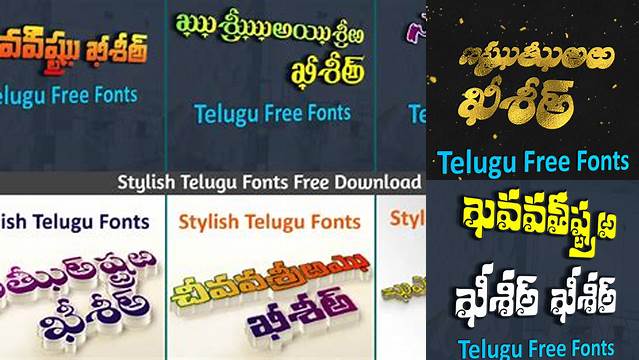
Telugu Movie Title Fonts: Free Download Guide
Let's dive into the vibrant world of Telugu cinema and explore where you can find the perfect telugu movie title fonts for free download. Choosing the right font is crucial; it's the first impression, the visual hook that grabs the audience's attention. We'll cover everything from classic styles to modern designs, ensuring you're well-equipped to make your movie title pop!
Telugu Font Styles for Movie Titles
When it comes to telugu movie title fonts, the variety is truly impressive. You have traditional fonts that evoke a sense of history and culture, often used in period dramas or films with a classical theme. These fonts tend to be more ornate and have a strong calligraphic influence. Then there are modern fonts that are sleek, clean, and contemporary, perfect for thrillers, action movies, or romantic comedies aiming for a fresh look. You might also find fonts that blend both traditional and modern elements, creating a unique and eye-catching style that stands out. Think about the genre and tone of your movie. A horror film might benefit from a distressed or edgy font, while a family-friendly movie would suit a playful and approachable typeface. Considering these factors will help you narrow down your choices and find the perfect font that complements your film's overall aesthetic. Experiment with different styles and see what resonates best with your vision. Remember, the font should not only be visually appealing but also legible and easy to read, even from a distance. This ensures that your movie title makes a strong impact and leaves a lasting impression on potential viewers.
Telugu Calligraphy Fonts
Telugu calligraphy fonts are an excellent choice for movie titles that require a touch of elegance and tradition. These fonts often mimic the fluid strokes of hand-lettered calligraphy, adding a unique and sophisticated feel to your design. When using calligraphy fonts, it's essential to consider the legibility of the title. While these fonts can be visually stunning, they may not be as easy to read as more straightforward typefaces, especially from a distance. Therefore, it's crucial to choose a calligraphy font that strikes a balance between beauty and readability. Experiment with different font sizes and spacing to ensure that the title remains clear and legible. Additionally, consider the context of the movie. Calligraphy fonts are particularly well-suited for historical dramas, romantic films, or movies that emphasize cultural heritage. They can evoke a sense of timelessness and authenticity, adding depth and meaning to the title. However, they may not be the best choice for modern action movies or thrillers, where a more contemporary font style might be more appropriate. When selecting a Telugu calligraphy font, pay attention to the details of the letterforms. Look for fonts that have smooth, flowing lines and consistent stroke weights. Avoid fonts that appear too cluttered or difficult to decipher. By carefully choosing and using Telugu calligraphy fonts, you can create movie titles that are both visually appealing and culturally relevant.
Modern Telugu Fonts
Modern Telugu fonts offer a sleek and contemporary alternative to traditional calligraphy styles. These fonts are characterized by their clean lines, minimalist designs, and emphasis on legibility. They are an excellent choice for movie titles that aim to convey a sense of modernity, innovation, or sophistication. Modern fonts are particularly well-suited for genres like science fiction, action, thrillers, and romantic comedies, where a fresh and contemporary look is desired. When using modern Telugu fonts, it's important to consider the overall tone and style of the movie. A futuristic sci-fi film might benefit from a geometric sans-serif font, while a lighthearted romantic comedy might call for a more playful and rounded typeface. Experiment with different font weights and styles to achieve the desired effect. Bold fonts can convey a sense of strength and confidence, while lighter fonts can create a more delicate and airy feel. Pay attention to the spacing between letters and words to ensure that the title remains easy to read. Modern fonts often work well with bold colors and minimalist backgrounds, allowing the title to stand out and make a strong visual impact. When selecting a modern Telugu font, look for typefaces that are well-designed and optimized for readability. Avoid fonts that appear too generic or lack character. Choose fonts that have a unique personality and complement the overall aesthetic of your movie. By carefully selecting and using modern Telugu fonts, you can create movie titles that are both stylish and effective.
Bold Telugu Fonts
Bold Telugu fonts are a powerful tool for creating movie titles that demand attention. The increased stroke weight of bold fonts makes them highly visible and easy to read, even from a distance. This makes them an excellent choice for movie posters, trailers, and other promotional materials where the title needs to make a strong impact. When using bold fonts, it's important to consider the overall design and composition of the title. Bold fonts can be overwhelming if not used carefully, so it's essential to balance their visual weight with other elements in the design. Use whitespace effectively to give the title room to breathe and prevent it from feeling too cluttered. Experiment with different font sizes and styles to find the right balance. A bold font can be particularly effective when paired with a contrasting background color, making the title stand out even more. However, be mindful of the color palette and ensure that the colors complement each other. Bold fonts are well-suited for a variety of genres, including action movies, thrillers, and dramas, where a sense of urgency and intensity is desired. They can also be used effectively in comedies and romantic films, but it's important to choose a font that is appropriate for the overall tone and style of the movie. When selecting a bold Telugu font, look for typefaces that are well-designed and optimized for readability. Avoid fonts that appear distorted or difficult to decipher. Choose fonts that have a consistent stroke weight and clean letterforms. By carefully selecting and using bold Telugu fonts, you can create movie titles that are both visually striking and highly effective.
Italic Telugu Fonts
Italic Telugu fonts offer a subtle yet effective way to add emphasis and style to your movie titles. The slanted letterforms of italic fonts can convey a sense of movement, energy, or sophistication, making them a versatile choice for a variety of genres. When using italic fonts, it's important to consider the context and tone of the movie. Italic fonts can be particularly well-suited for romantic films, dramas, and historical movies, where a touch of elegance and refinement is desired. They can also be used effectively in thrillers and mysteries to create a sense of intrigue and suspense. However, they may not be the best choice for action movies or comedies, where a more straightforward and bold font style might be more appropriate. When selecting an italic Telugu font, pay attention to the design of the letterforms. Look for fonts that have a consistent slant and smooth, flowing lines. Avoid fonts that appear distorted or difficult to read. Experiment with different font sizes and styles to achieve the desired effect. Italic fonts can be particularly effective when paired with a contrasting background color or used in combination with a bold font. This can help to create visual interest and draw attention to the title. However, be mindful of the overall design and composition of the title and ensure that the italic font complements the other elements. By carefully selecting and using italic Telugu fonts, you can create movie titles that are both stylish and effective.
Telugu Font Color Combinations
Exploring effective telugu font color combinations is essential for creating visually striking movie titles and promotional materials that capture attention and convey the right message. The colors you choose for your Telugu font can significantly impact the overall mood, tone, and readability of your design. When selecting color combinations, consider the genre, themes, and target audience of your movie. Bold and contrasting colors, such as red and black or yellow and blue, can be effective for action and thriller movies, creating a sense of excitement and energy. Soft and harmonious colors, such as pastels or earth tones, can be used for romantic dramas, creating a feeling of intimacy and sophistication. Playful and vibrant colors, such as neon or primary colors, can be used for comedies, evoking laughter and lightheartedness. Experiment with different color combinations to find what works best for your Telugu font and design. Use a color wheel or online color palette generator to explore different color options. Consider the background color and ensure that your font color provides sufficient contrast for readability. Test your color combinations on different screens and devices to ensure that they look good across various platforms. By mastering Telugu font color combinations, you can create visually appealing and impactful designs that enhance the overall success of your movie.